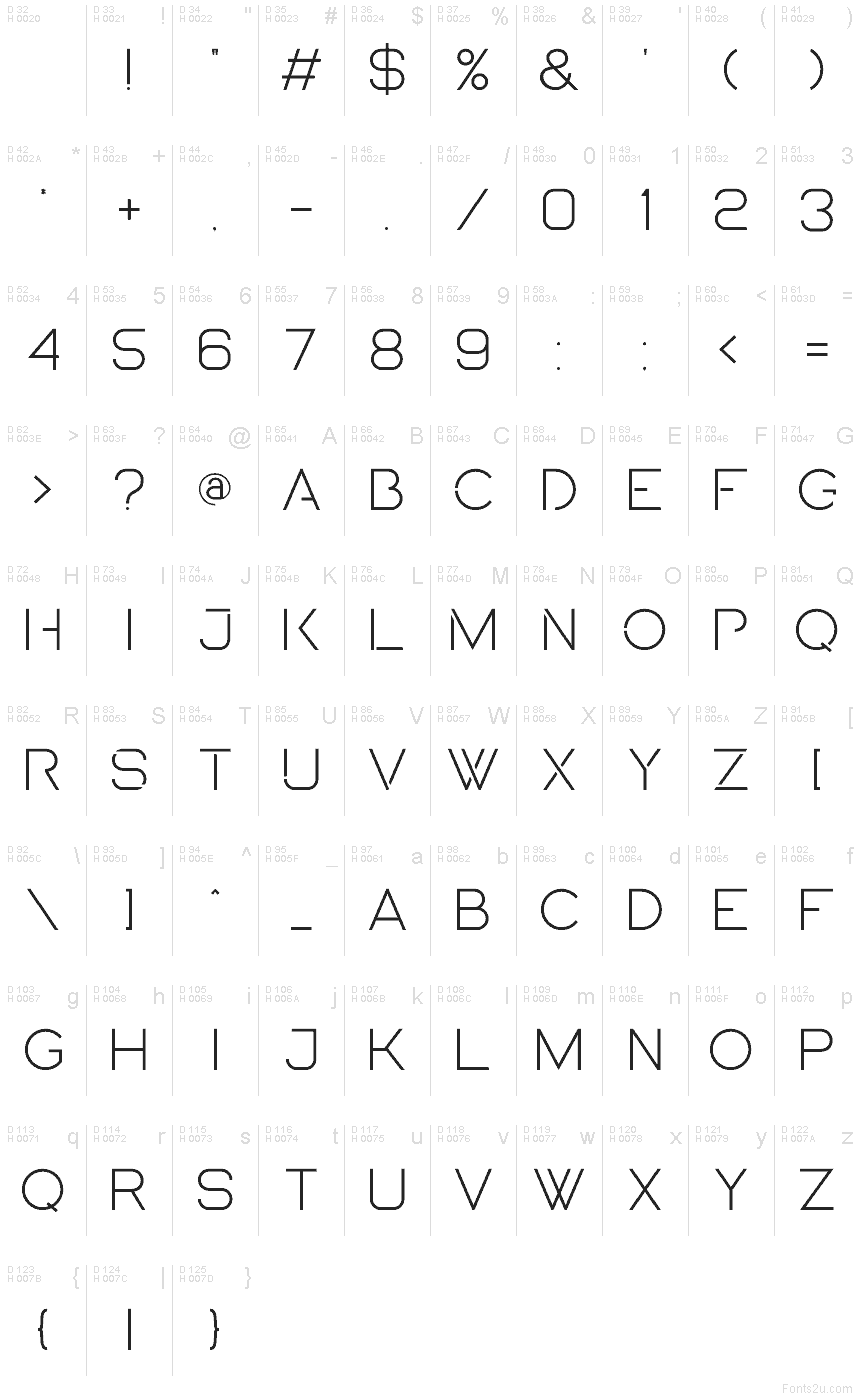
Gestrom
Gestrom font by Ermedia Studio is a free thin geometric sans serif font. Built around ultraslim strokes and cool, architectural curves, it has a weightless clarity that feels precise without turning cold. Tight joins and squared contours create a sleek, high-fashion vibe, while the generous counters keep it airy and legible at headline sizes.
Using Gestrom, titles snap into focus with a refined, modern edge—great for fashion branding, tech logos, editorial mastheads, luxury packaging, event posters, and sleek portfolio covers. This free font shines when tracked slightly and set large; pair it with a neutral grotesk for body copy to balance its razor-clean silhouette.